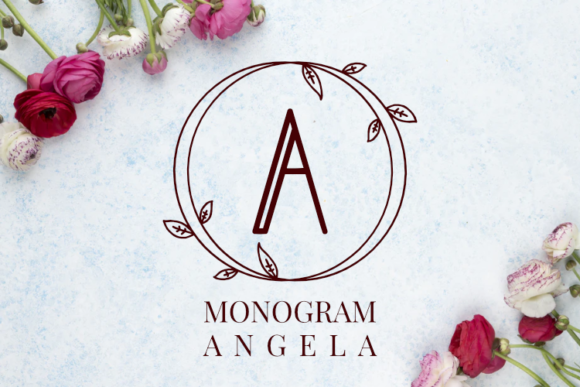
Step into a world of elegance and charm with Monogram Angela Font, a decorative font that will transform your creative projects into breathtaking masterpieces. Inspired by the timeless beauty of monograms, this font exudes a delicate and romantic aura that will leave you spellbound.
Crafted with the utmost care by Letterayu, Monogram Angela Font is a true gem in the world of typography. Its intricate swirls, graceful curves, and delicate flourishes dance across the page, creating a visual symphony that captivates the senses. Whether you're a seasoned designer or just starting your creative journey, this font is sure to ignite your imagination and leave you yearning for more.
With Monogram Angela Font, you'll discover endless possibilities to express your creativity. From love letters that whisper sweet nothings to wedding invitations that exude an air of sophistication, this font is the perfect companion for all your heartfelt expressions. Let your imagination soar as you use it to create stunning designs that will leave a lasting impression.
So, dear creative soul, embrace the allure of Monogram Angela Font and embark on an artistic odyssey where beauty knows no bounds. Let this font be your muse, guiding you towards designs that are both visually captivating and emotionally resonant. The world of typography awaits your unique touch - seize this opportunity and make your creative dreams a reality.